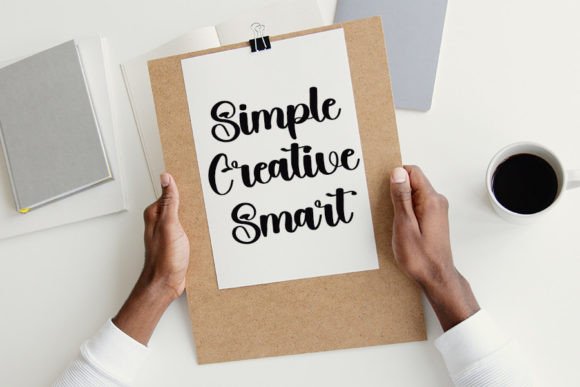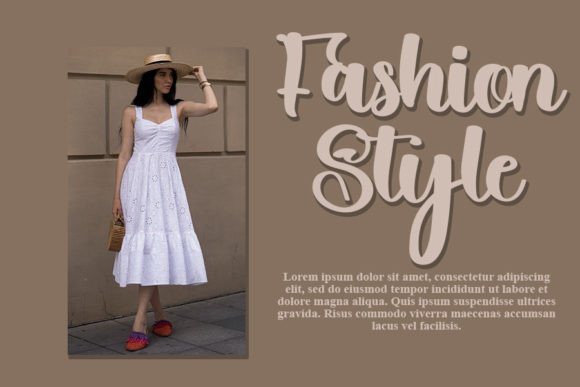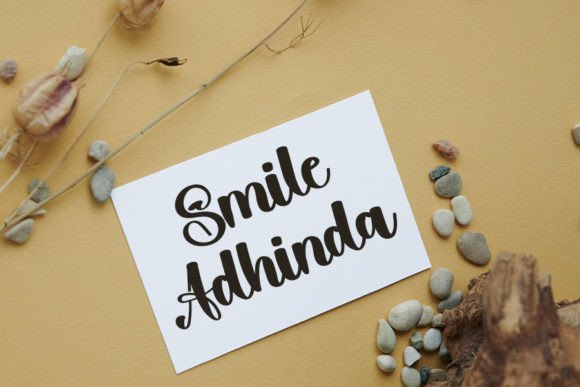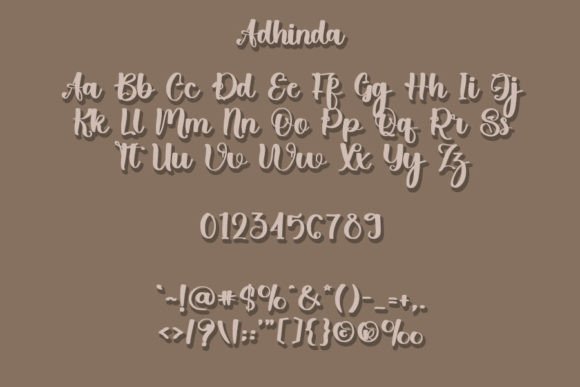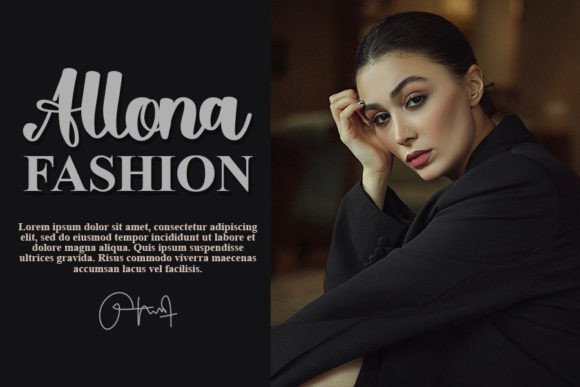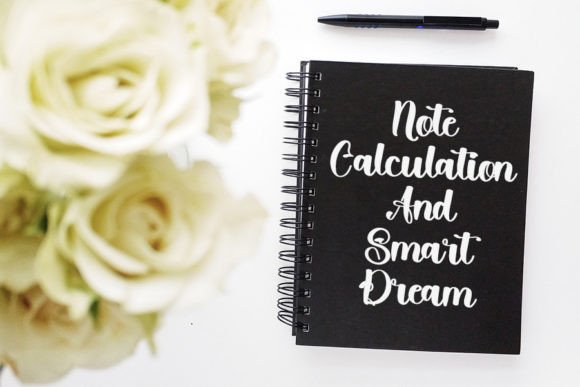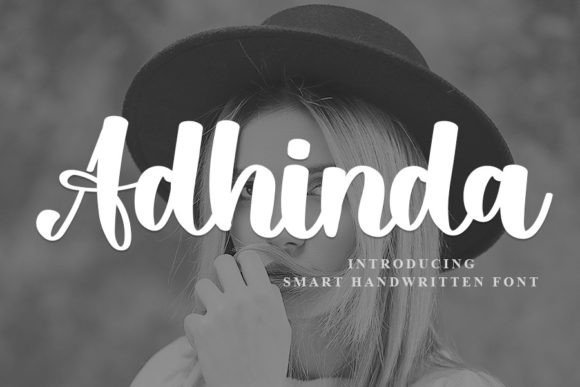
Introducing Adhinda Font: Elevate Your Designs with Elegance and Sophistication
Are you a designer or crafter looking for a font that exudes class, elegance, and modernity? Look no further than Adhinda Font, a stunning script font that is sure to take your designs to the next level. With its refined and beautiful appearance, Adhinda Font is perfect for a wide range of applications, from logos and branding to invitations, stationery, wedding designs, social media posts, and more.
The Characteristics of Adhinda Font
Adhinda Font boasts a unique blend of classic and modern elements, making it an incredibly versatile font for any design project. Its key characteristics include:
• Classy and Elegant: Adhinda Font features flowing lines and intricate details that give it a sophisticated and luxurious feel.
• Modern Look: Despite its classic roots, Adhinda Font has a distinctly modern edge that makes it perfect for contemporary designs.
• Script Style: As a script font, Adhinda Font is ideal for adding a personal touch to your designs, making them stand out from the crowd.
Uses of Adhinda Font
The versatility of Adhinda Font is one of its most appealing features. Here are just a few examples of how you can use this beautiful font in your designs:
• Logos and Branding: Create a lasting impression with a logo that features Adhinda Font, perfect for high-end brands and businesses.
• Invitations and Stationery: Add a touch of elegance to your invitations, greeting cards, and stationery with Adhinda Font.
• Wedding Designs: Make your wedding designs truly unforgettable with Adhinda Font, ideal for wedding invitations, programs, and more.
• Social Media Posts: Elevate your social media presence with Adhinda Font, perfect for creating eye-catching posts and stories.
Why Choose Adhinda Font?
With so many fonts available, why should you choose Adhinda Font for your next design project? Here are just a few compelling reasons:
• Unique and Memorable: Adhinda Font is sure to make your designs stand out from the crowd, thanks to its unique and memorable appearance.
• High-Quality: Adhinda Font is a high-quality font that is designed to deliver exceptional results, even at small sizes.
• Easy to Use: Adhinda Font is incredibly easy to use, making it perfect for designers and crafters of all skill levels.
Tips for Using Adhinda Font
To get the most out of Adhinda Font, here are a few tips to keep in mind:
• Pair with Other Fonts: Adhinda Font pairs beautifully with other fonts, so don’t be afraid to experiment with different combinations.
• Use for Headings: Adhinda Font is perfect for headings and titles, where its elegant appearance can really shine.
• Experiment with Colors: Adhinda Font looks great in a wide range of colors, so don’t be afraid to try out different options.
Adhinda Font is a truly exceptional script font that is sure to elevate your designs to new heights. With its classy, elegant, and modern appearance, Adhinda Font is perfect for a wide range of applications, from logos and branding to invitations, stationery, wedding designs, social media posts, and more. Whether you’re a designer or crafter, Adhinda Font is a must-have font that is sure to become a staple in your design toolkit.